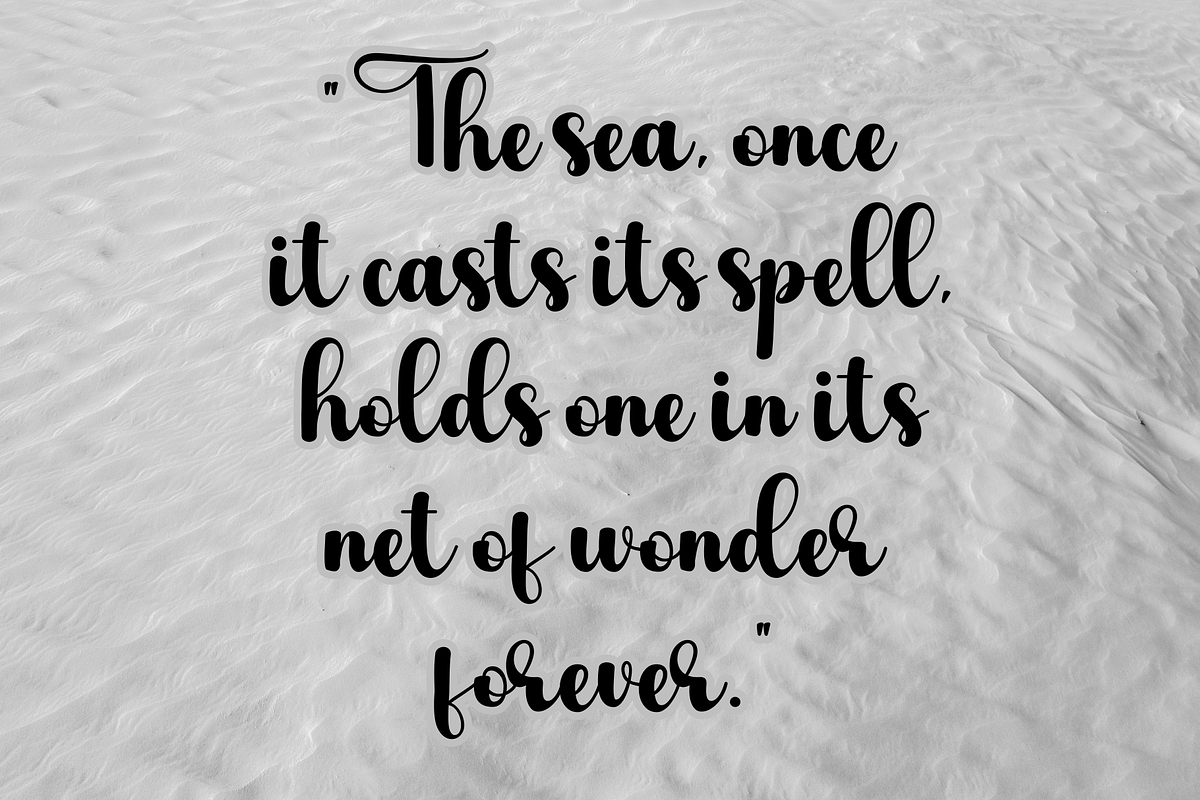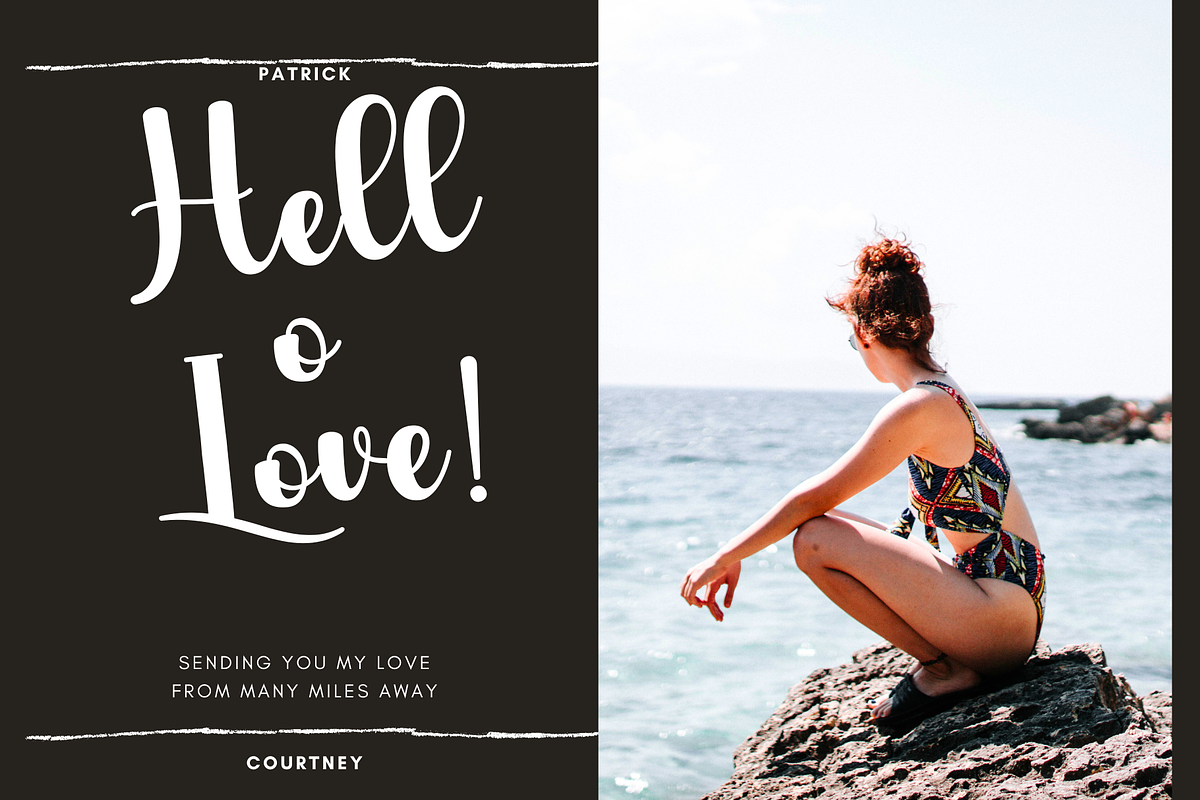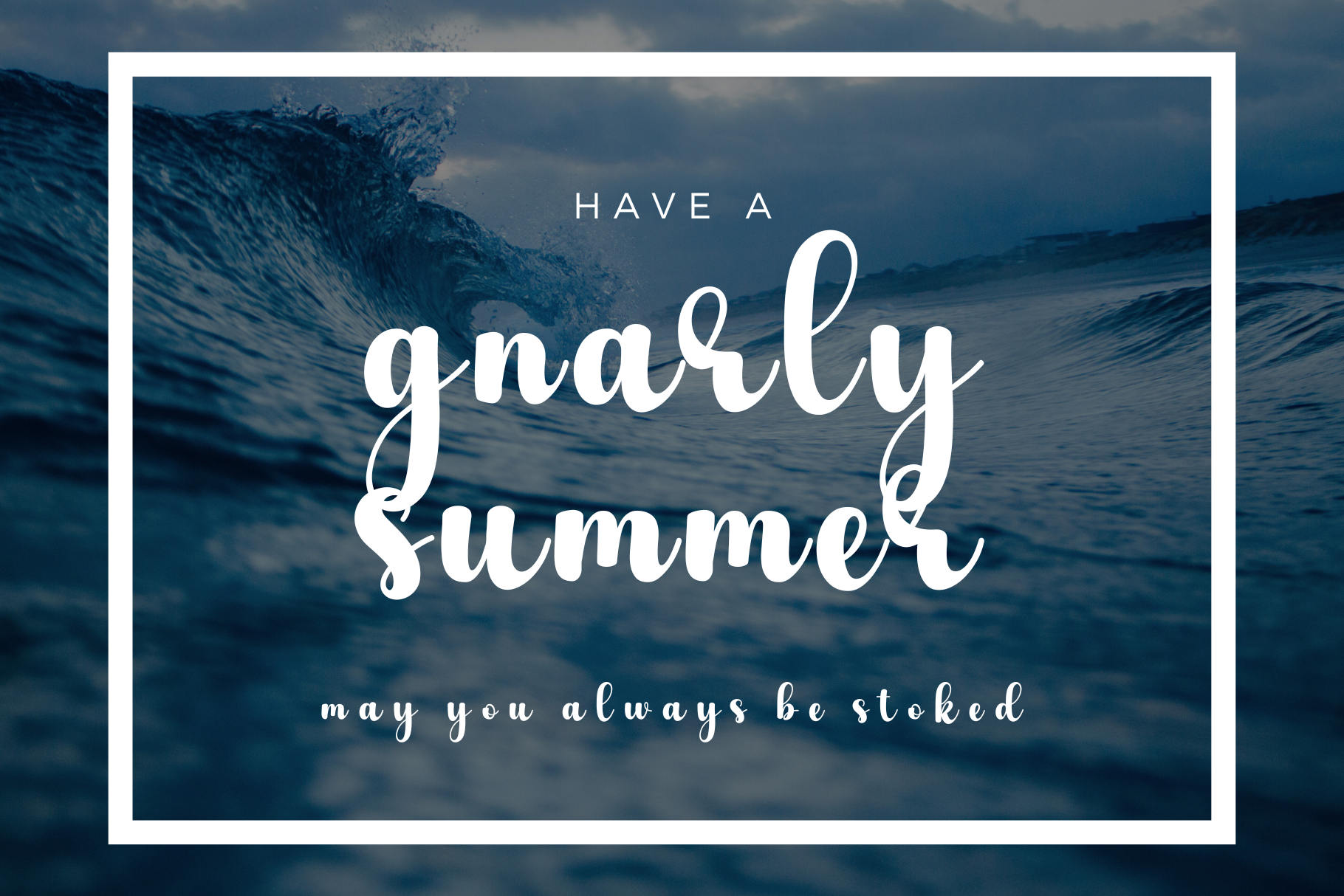
Inviting Troubles- Handwritten Font
Inviting Troubles is a sweet and friendly handwritten font. Fresh and neat, this font is ideal for writing wedding invitations, cards, or any other design that might need a fun touch! PUA encoded which means you can access all of the glyphs and swashes with ease